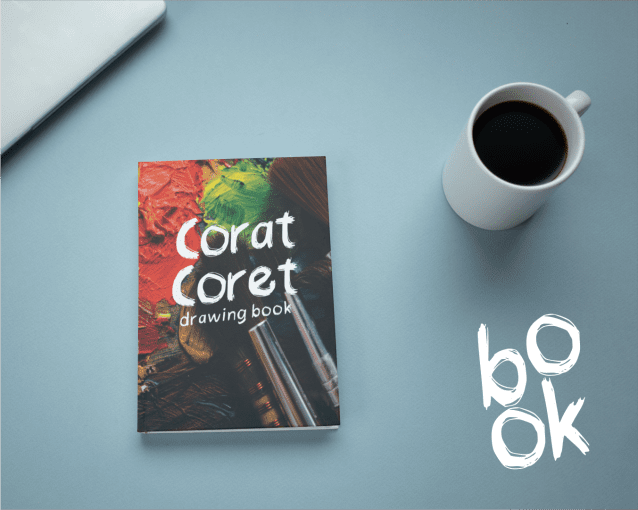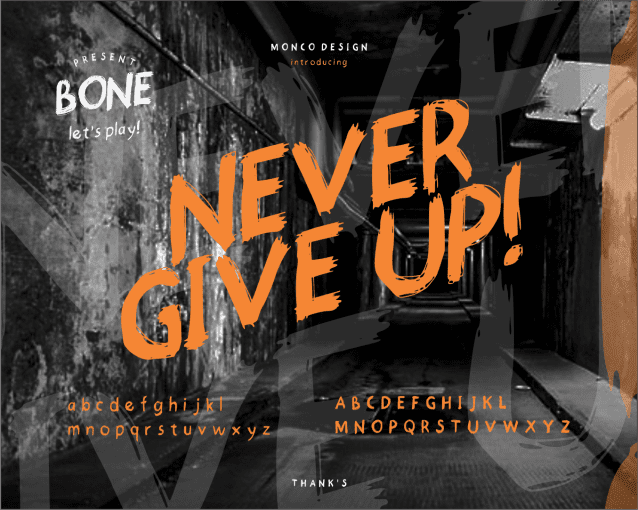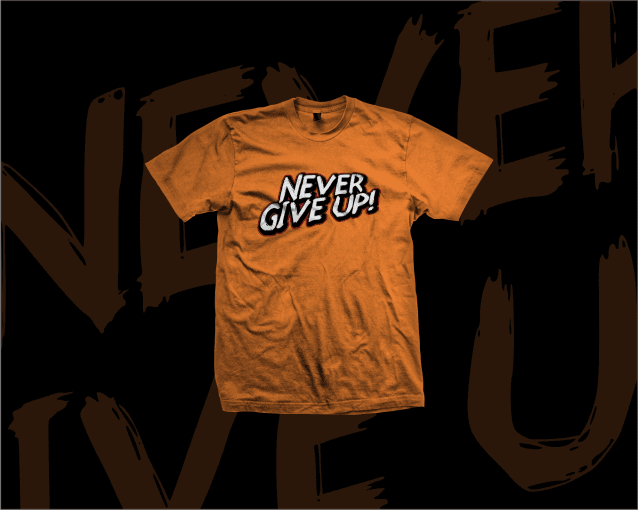
Bone Brush Font
Bone Brush Font, It would be a perfect choice to design posters, affiches, logos, t-shirt and magazine prints, eye-pleasing typographic designs and more.